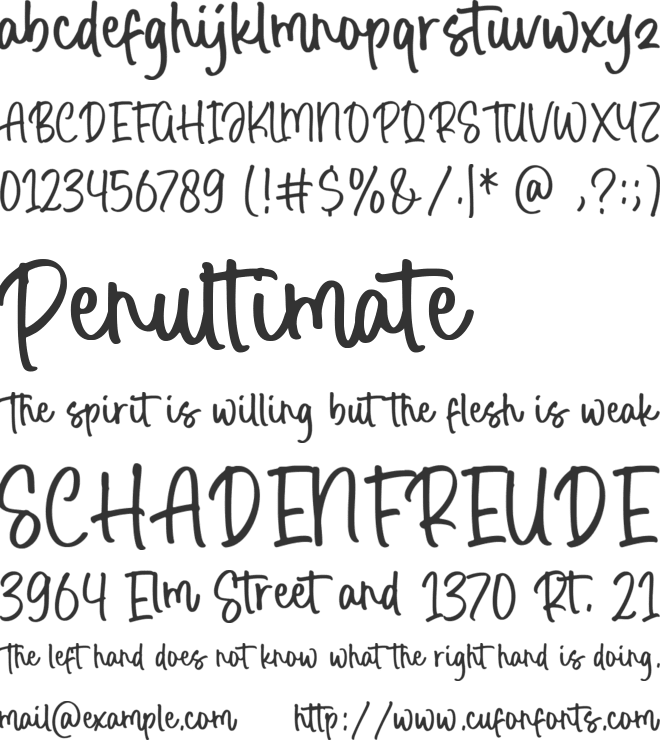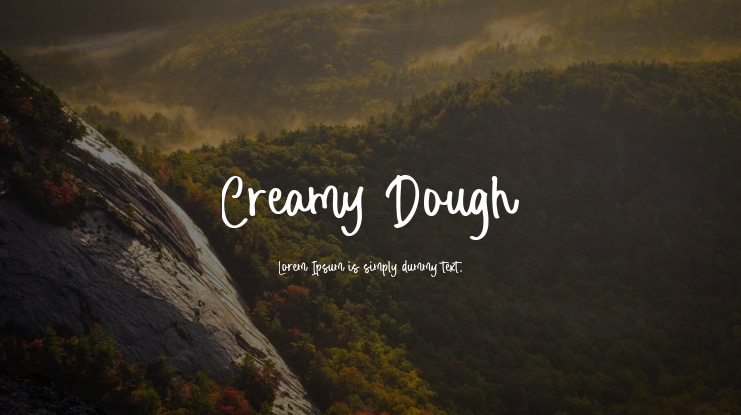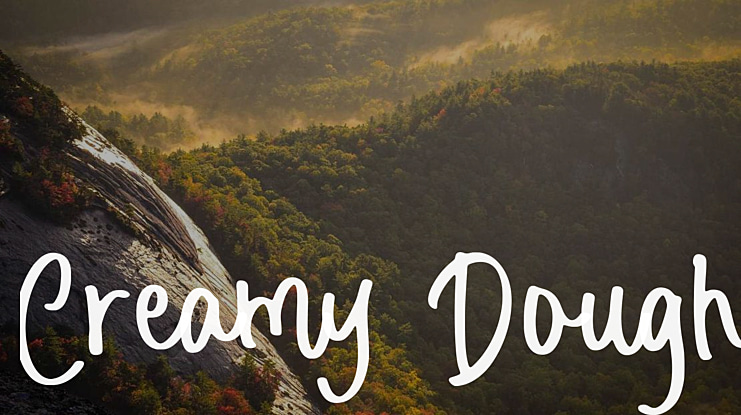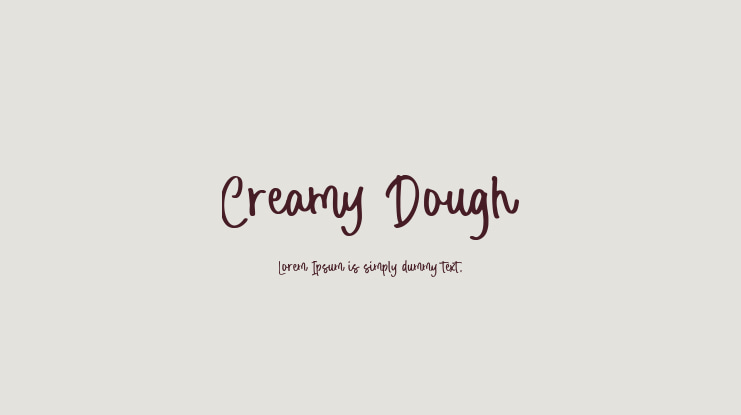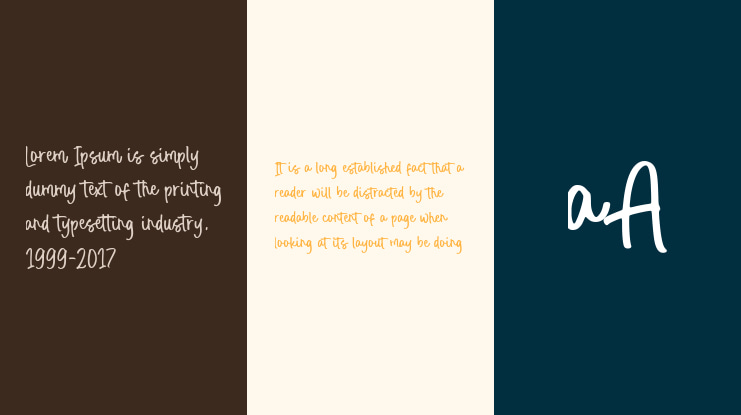
Creamy Dough Font
Introducing Creamy Dough - a modern hand-drawn font that exudes cleanliness, elegance, and versatility. This font is perfect for a wide range of design projects. Its smooth, effortlessly crafted lines and understated sophistication make it a timeless choice for those seeking a contemporary look with a classic appeal.
Carefully crafted with precision and attention to detail, Creamy Dough offers incredible versatility across various design projects, such as logos, branding, invitations, packaging, and more. Its simple yet refined aesthetic ensures a memorable impact on anyone who encounters it.